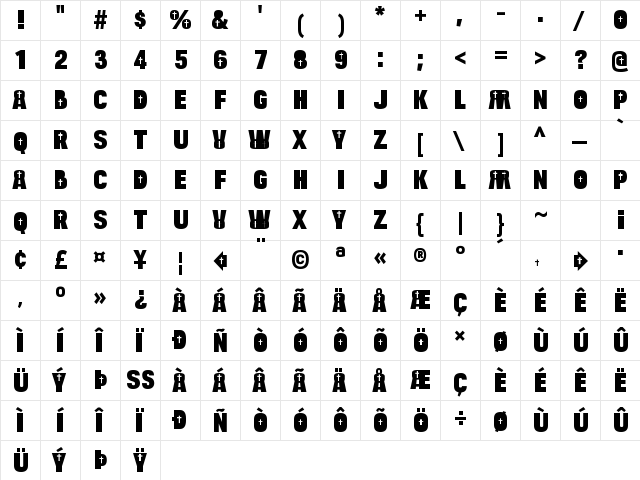
Bulltoad Crucifix Regular
Design Context for Bulltoad Crucifix Typeface
Bulltoad Crucifix is a composed and adaptable typeface that performs quietly and consistently across a wide range of design contexts.